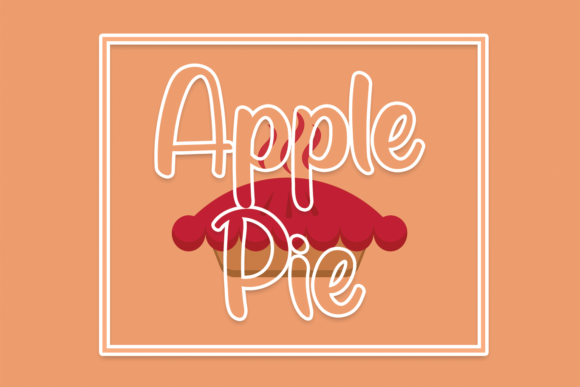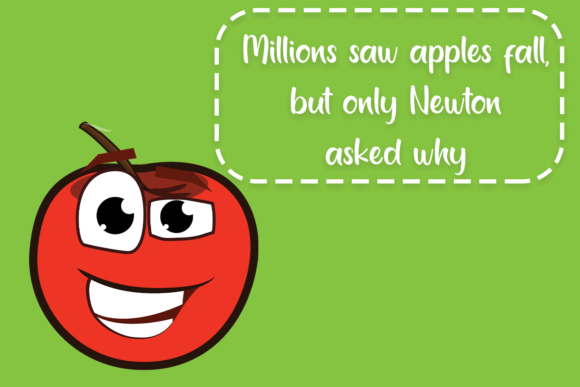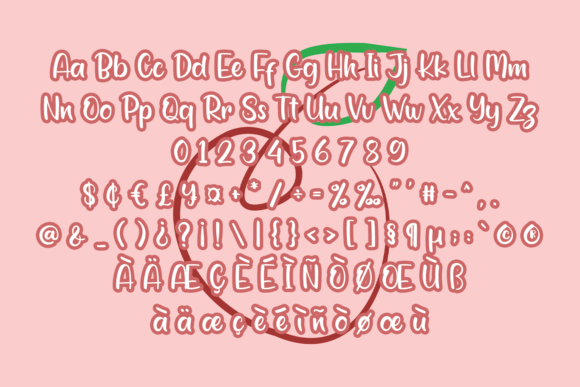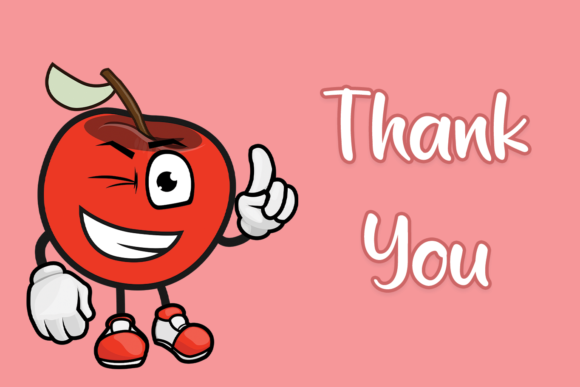
Discover the Perfect Font for Your Creative Masterpiece
Do you remember the moment when a new font just clicked, and your entire design project came to life? It’s that feeling of excitement and relief when everything falls into place. For designers, finding the right font can be the difference between a good design and a great one. That’s why we’re excited to introduce you to the Apple Berry Font, a playful and friendly display font that’s sure to make your projects stand out.
The Apple Berry Font is a versatile tool that can be matched to a wide range of projects, from branding and advertising to digital art and editorial content. Its friendly and approachable nature makes it perfect for designers who want to add a touch of whimsy and personality to their work. With the Apple Berry Font, you can add a unique touch to your designs and make them truly unforgettable.
Key Features of Apple Berry Font
- Font Family: Apple Berry is a script font family, designed to resemble handwritten text.
- Size and Resolution: The font comes in a range of sizes, from 8 to 72 points, and supports resolutions up to 1200 DPI.
- Unique Characteristics: Apple Berry Font features a unique, hand-drawn design with subtle imperfections, giving it a personal and friendly feel.
- Font Weight: Apple Berry Font comes in three weights: Light, Regular, and Bold, allowing for flexibility in design and layout.
Designer Review: Apple Berry Font
Overall, I was quite impressed with the Apple Berry Font. It has a unique and modern design that can add a touch of elegance to any project. ✨ The font’s distinctive curves and rounded edges give it a friendly and approachable feel.
The font’s versatility is also one of its strong points. It can be used in a variety of contexts, from digital displays to print materials, and still maintain its appeal. ✨ The font’s range of weights and styles also makes it easy to use in different scenarios.
However, there are a few limitations to the Apple Berry Font that need to be considered. ⚠️ One of the main issues is its readability at smaller font sizes. The font’s curves and rounded edges can make it difficult to read in certain situations.
Another limitation is the font’s limited language support. ⚠️ While it supports most Latin-based languages, it may not be suitable for languages that require more complex scripts or character sets.
Conclusion
In conclusion, the Apple Berry Font is a solid choice for designers looking for a modern and elegant font. While it has some limitations, its unique design and versatility make it a valuable addition to any design project.
- Unique and modern design
- Friendly and approachable feel
- Versatile and easy to use
- Range of weights and styles
- Readability issues at smaller font sizes
- Limited language support
Practical Application Guide for Apple Berry Font
Apple Berry Font is ideal for creating eye-catching titles and headings in Canva. Use it to add a pop of color and whimsy to your designs.
Apple Berry Font is perfect for creating custom typography in Adobe Creative Cloud apps. Use it to add a touch of elegance and sophistication to your designs.
Apple Berry Font is great for creating visually appealing titles and headings in PowerPoint or Word. Use it to add a touch of fun and personality to your presentations and documents.
Tips for Getting the Most Out of Apple Berry Font
Use Apple Berry Font sparingly to avoid overwhelming your design. Pair it with neutral colors and simple shapes to let the font shine.
Experiment with different font sizes and colors to find the perfect balance for your design.
Apple Berry Font is perfect for:
- Creative projects, such as invitations and party decorations.